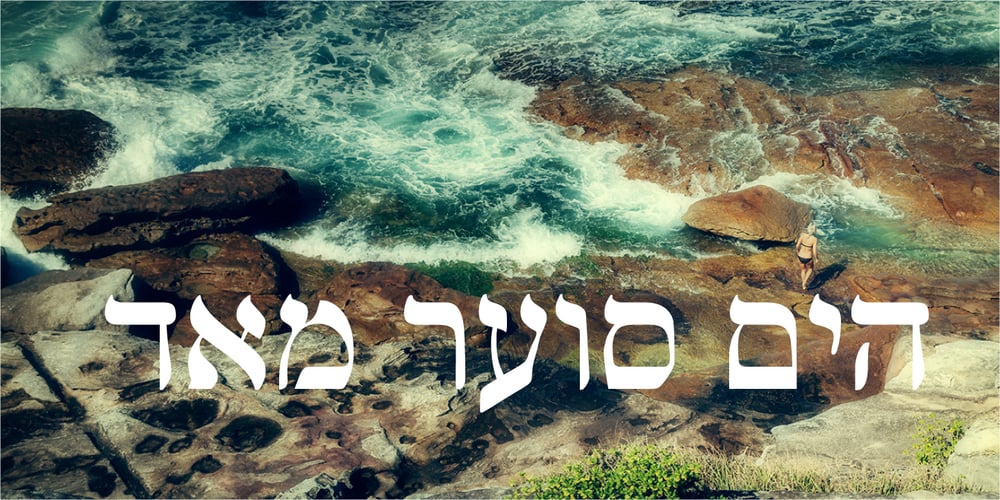
Vilna MF
Vilna MF font
Vilna MF Font Family was designed by Zvika Rosenberg and published by Masterfont. Vilna MF contains 4 styles and family package options. Based on the original old manuscripts from Vilna Print from 1863, this font is unique by its flow and contrast, enabling this typeface gain a new and clear flow and rhythm.